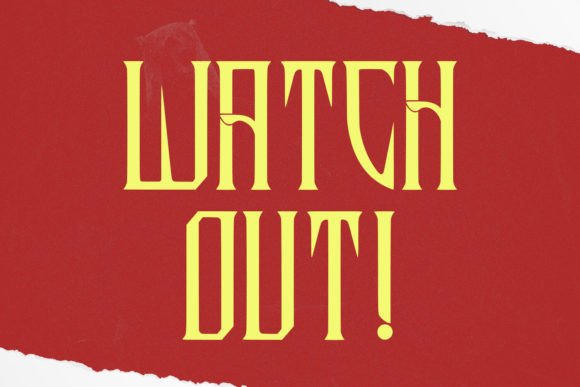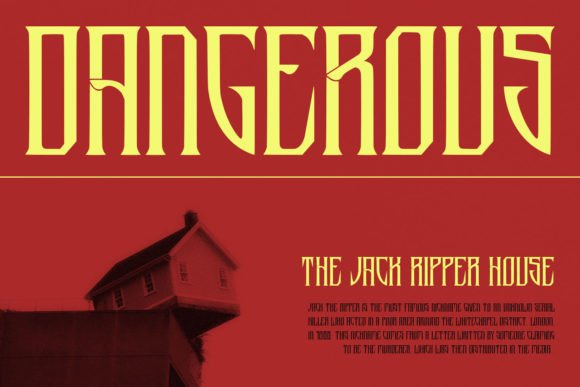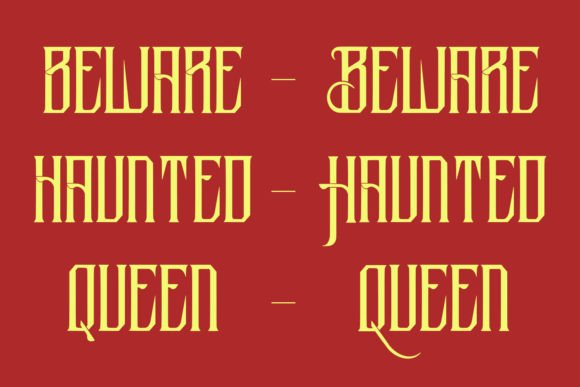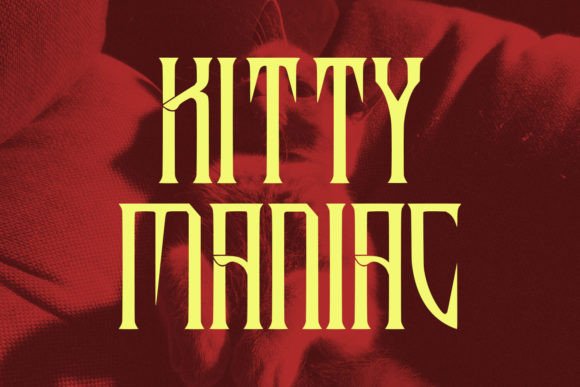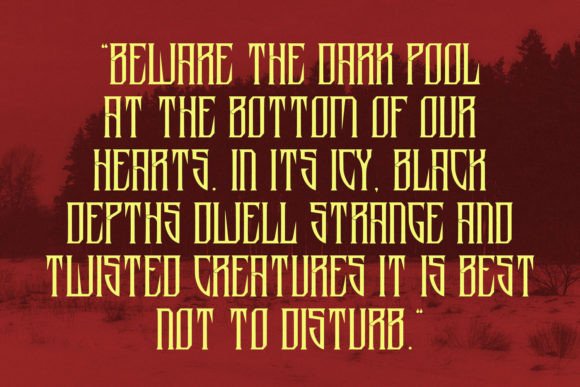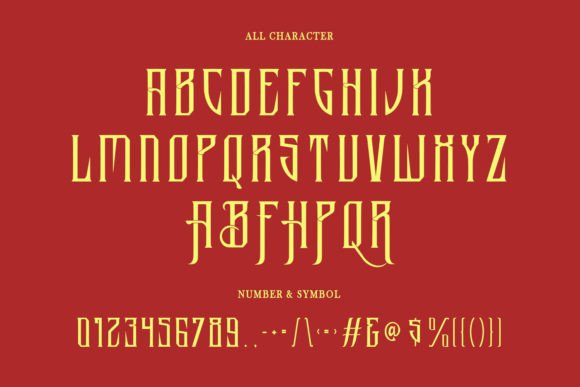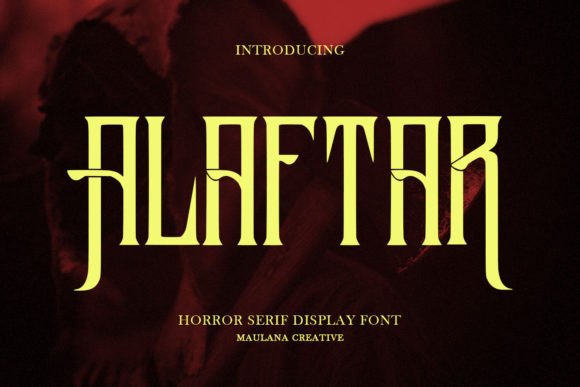
Meet Alaftar: The Chilling Serif Display Font That Will Send Shivers Down Your Spine
As a designer, I’ve had my fair share of late nights scrolling through font libraries, searching for that perfect typeface to bring a project to life. But one project that still haunts me (pun intended) was a Halloween-themed design for a client who wanted a font that would evoke a sense of horror and mystery. After hours of searching, I stumbled upon Alaftar, a serif display font that would change the game. In this article, I’ll share my experience with Alaftar, its features, and how to make the most of this chilling font.
My First Encounter with Alaftar
I remember being blown away by Alaftar’s jagged edges and ominous curves. It was as if the font was screaming at me to use it for my Halloween project. And, boy, did it deliver! The client was thrilled, and I received countless compliments on the design. From that day on, Alaftar became my go-to font for any spooky or eerie project.
An Honest Review of Alaftar
The Good: What I Love About Alaftar ✨
- Unique and eye-catching design that grabs attention ✅
- Perfect for Halloween-themed designs, horror movies, or eerie headlines 🎃
- Supports OpenType features, glyphs, and stylistic alternates for added versatility 📈
- Works well in large sizes, making it ideal for posters, billboards, or social media graphics 📊
The Not-So-Good: Small Quirks and Limitations 🤔
- May not be suitable for body text or reading-heavy content due to its bold and ornate design ⚠️
- Limited use in formal or professional settings, as it may come across as too playful or attention-seeking 🤝
The Story Behind Alaftar: Designer Inspiration
Alaftar was designed by a team of creatives who wanted to create a font that would evoke a sense of horror and mystery. Inspired by classic horror movies and haunted mansions, they crafted a unique and chilling serif font that would send shivers down your spine.
Q: What type of projects is Alaftar best suited for?
A: Alaftar is perfect for Halloween-themed designs, horror movies, eerie headlines, and any project that requires a spooky touch.
Q: Can I use Alaftar for body text or reading-heavy content?
A: No, Alaftar is best used for display purposes, such as titles, headings, or captions. Its bold and ornate design makes it difficult to read in large blocks of text.
Q: Does Alaftar support OpenType features?
A: Yes, Alaftar supports OpenType features, glyphs, and stylistic alternates, making it a versatile font for creative projects.